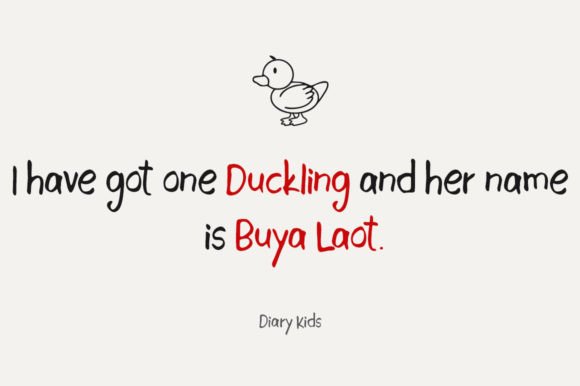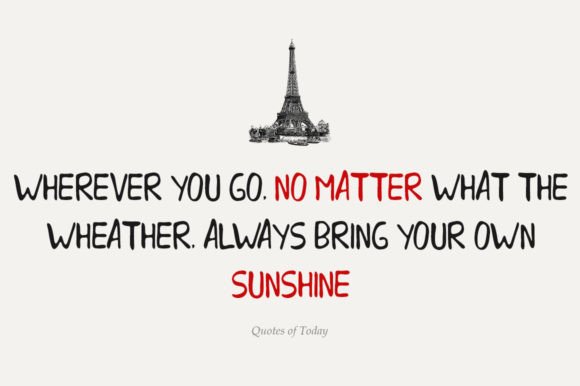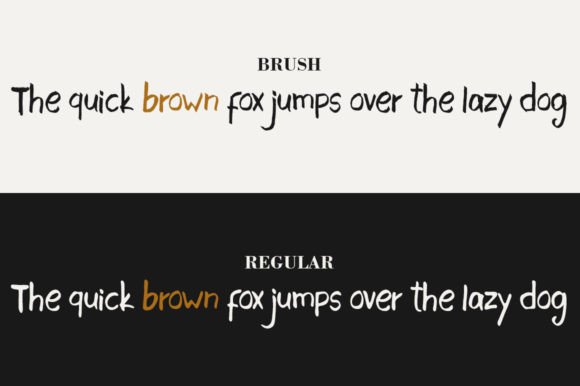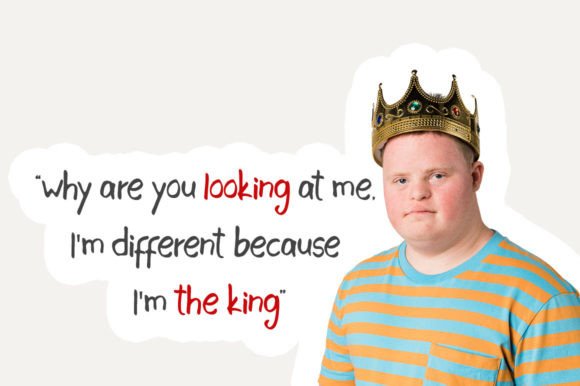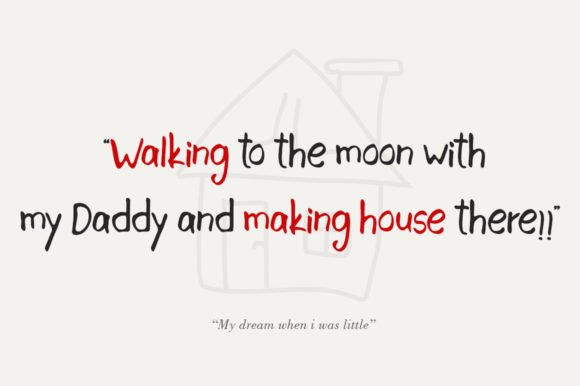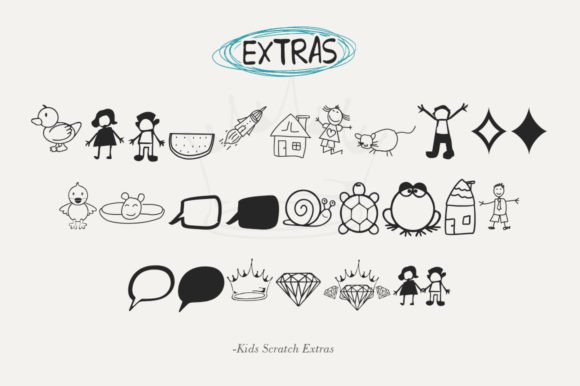
Kids Scratch Font
About Kids Scratch Font
“Kids Scratch” is a brilliant, fun, and aesthetically pleasing handwritten font designed to bring a cheerful touch to your projects. Its playful style makes it perfect for use on topics associated with children and is particularly well-suited for children’s themed designs. The font truly shines when combined with bright colors, enhancing the overall visual appeal.
The scratchy and handwritten aesthetic of “Kids Scratch” adds a touch of spontaneity and creativity to your designs, mimicking the look of doodles or playful scribbles. This makes it an excellent choice for projects aimed at capturing the attention and imagination of young audiences.
The font’s adaptability to bright colors enhances its suitability for children’s designs, creating a vibrant and engaging visual experience. Whether used in educational materials, posters, invitations, or any other project geared toward kids, “Kids Scratch” brings a sense of joy and playfulness.
Incorporating this font into your designs allows you to create a lively and dynamic atmosphere, making it an ideal choice for conveying the energy and enthusiasm associated with childhood.
In summary, “Kids Scratch” is a brilliant and fun font that adds an aesthetically pleasing touch to your designs, especially those related to children. Let it be the key element in your cheerful and vibrant creations, capturing the spirit of youthful exuberance.